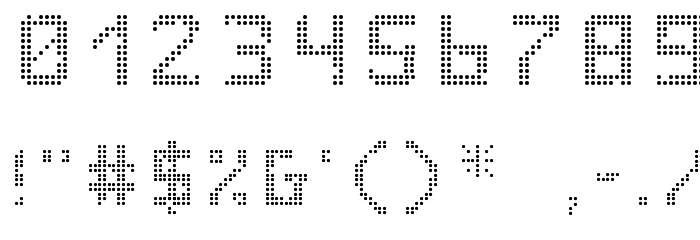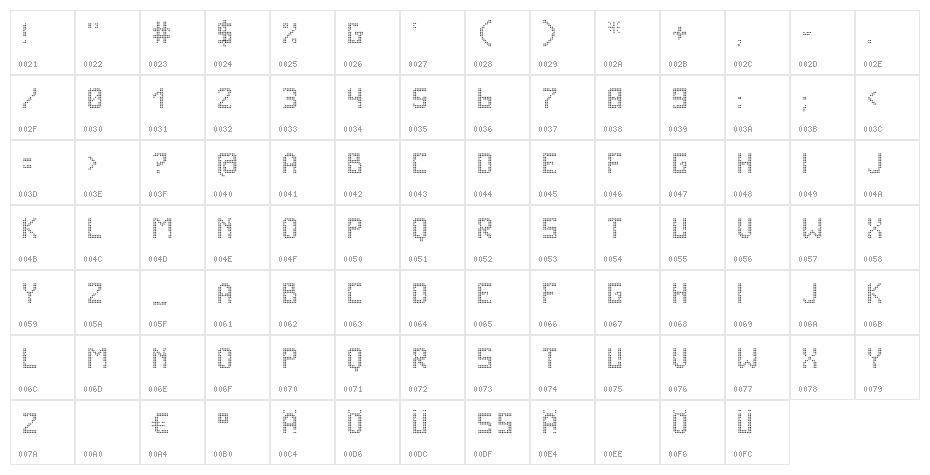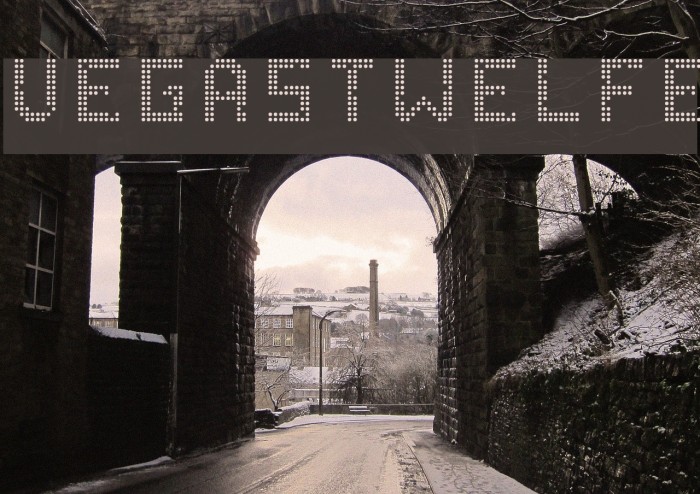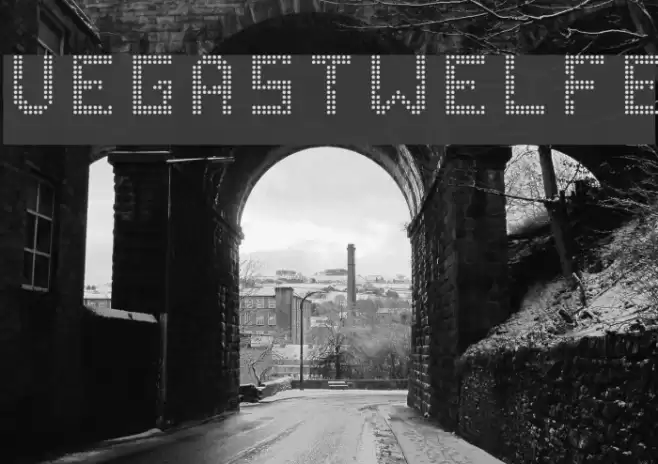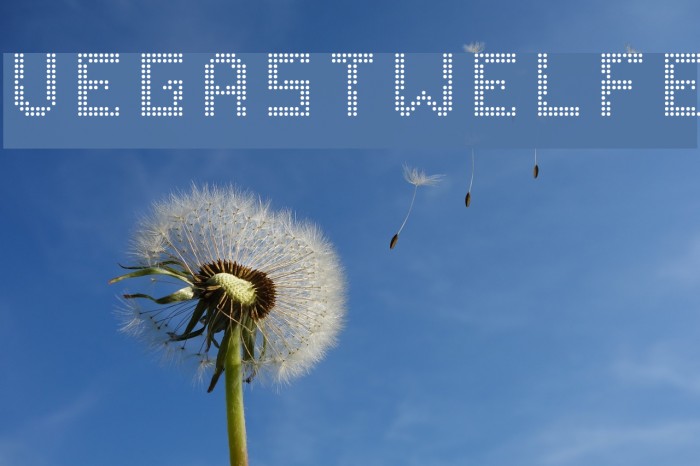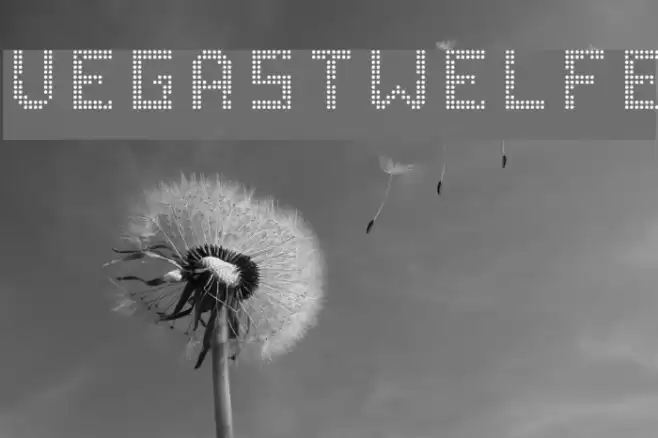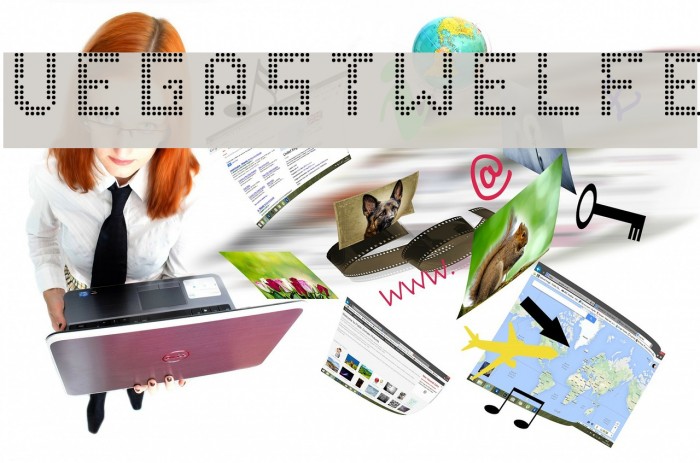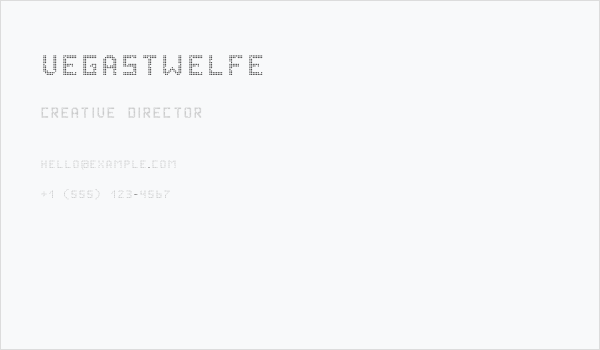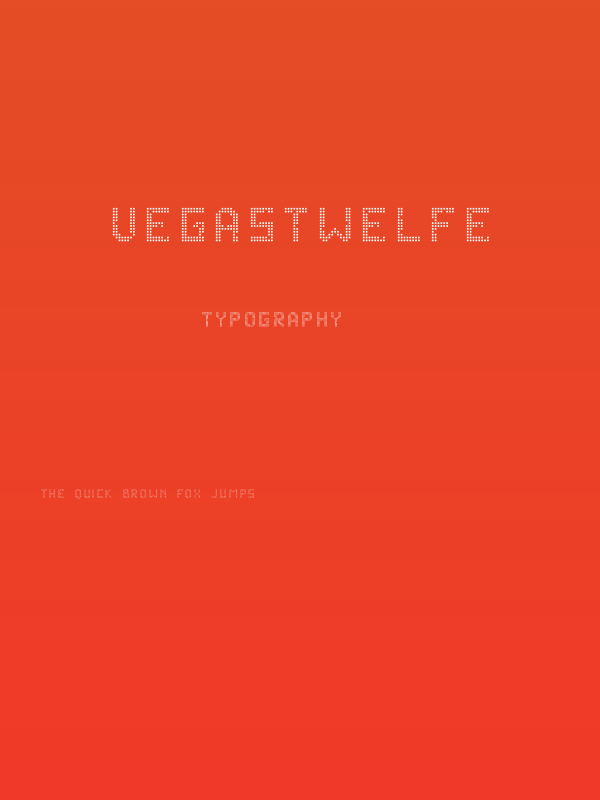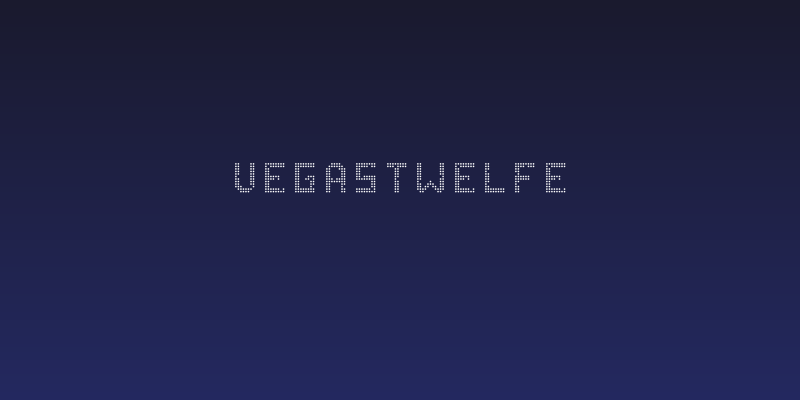
VegasTWELFE Font
VegasTWELFE Description
This font features a unique dotted design, creating characters with a series of evenly spaced dots that form each letter and number. The style is reminiscent of digital displays or marquee lights, giving it a modern and technological feel. The uppercase and lowercase letters maintain a consistent structure, with clear differentiation between each character. Numbers are easily distinguishable, and the special characters are crafted with the same dotted pattern, ensuring uniformity across the font. The overall appearance is clean and geometric, making it suitable for digital-themed projects or designs that require a futuristic touch.
| Proposed Projects | Ideal for digital displays, tech-themed posters, and futuristic branding. |